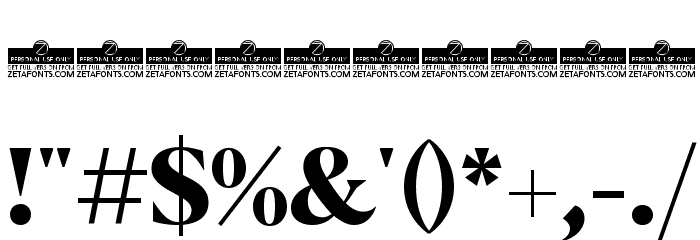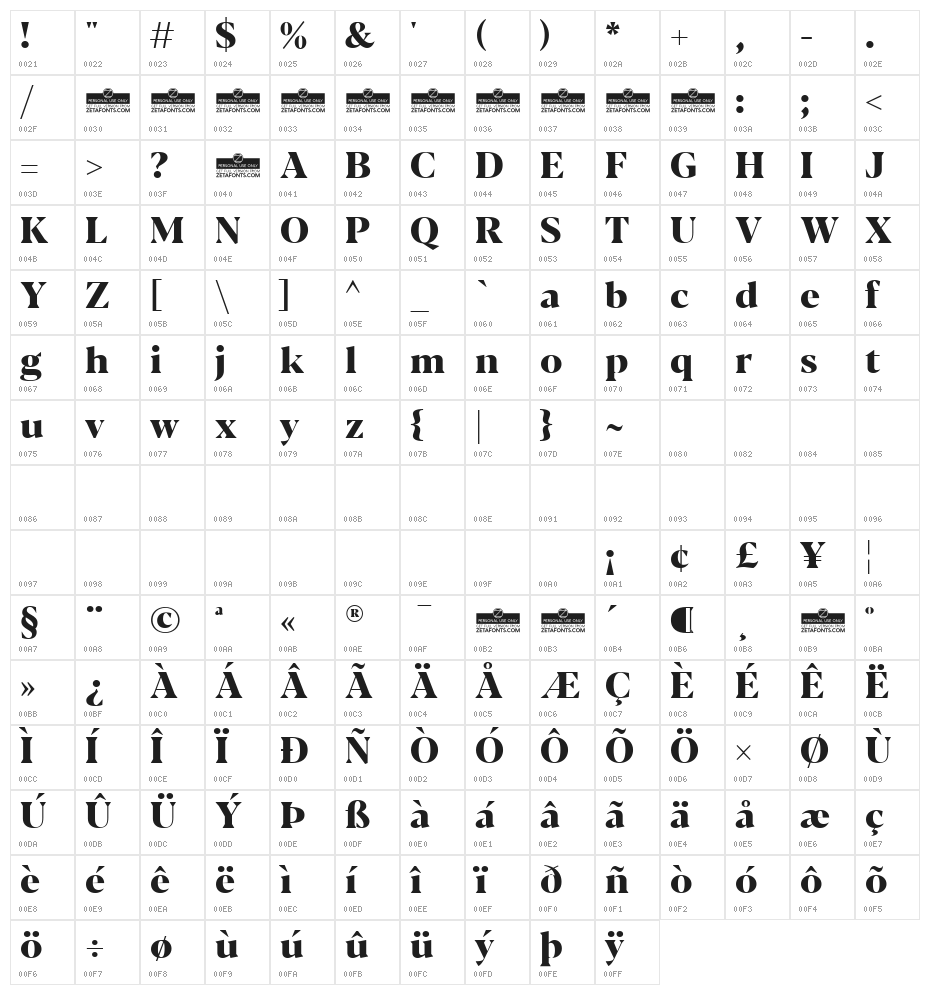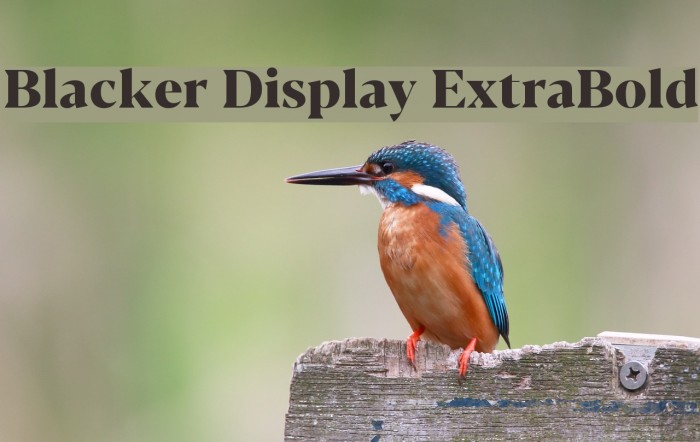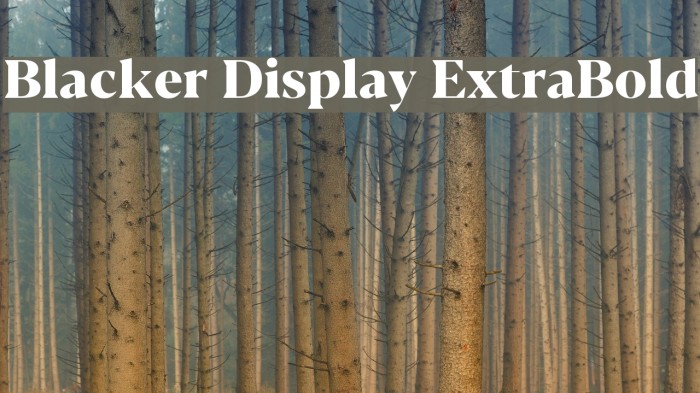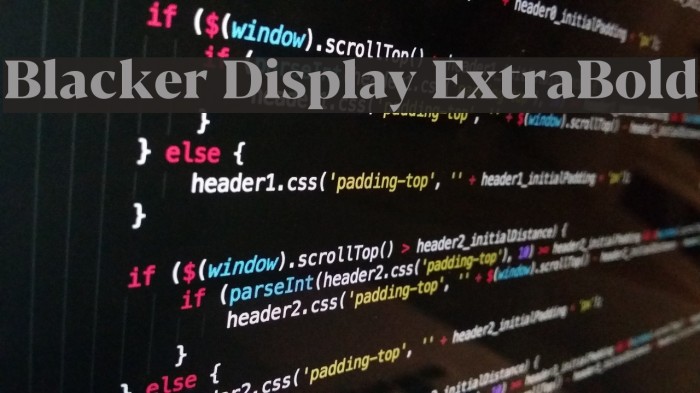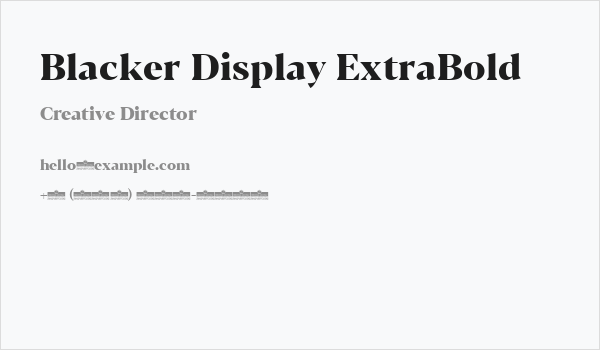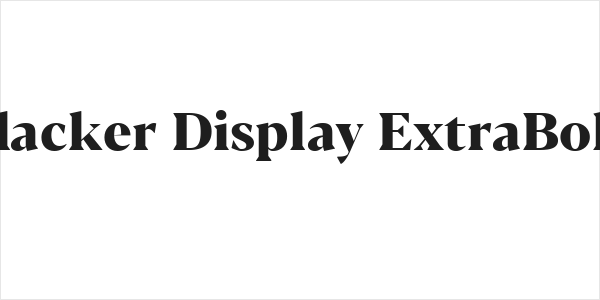
Blacker Display ExtraBold Font
Blacker Display ExtraBold Description
This font exhibits a bold and commanding presence with its thick, heavy strokes and sharp serifs. The uppercase letters are particularly striking, with a strong vertical emphasis and slightly condensed proportions that give a sense of authority and sophistication. The lowercase letters maintain a consistent weight, ensuring readability while preserving the font's bold character. The numerals and special characters are designed to match the overall robust style, making them suitable for impactful displays. The high contrast between thick and thin strokes adds to the dramatic effect, making this font ideal for headlines and titles that demand attention.
| Proposed Projects | Ideal for luxury branding, magazine headlines, poster designs, and any project requiring a strong, authoritative typeface. |